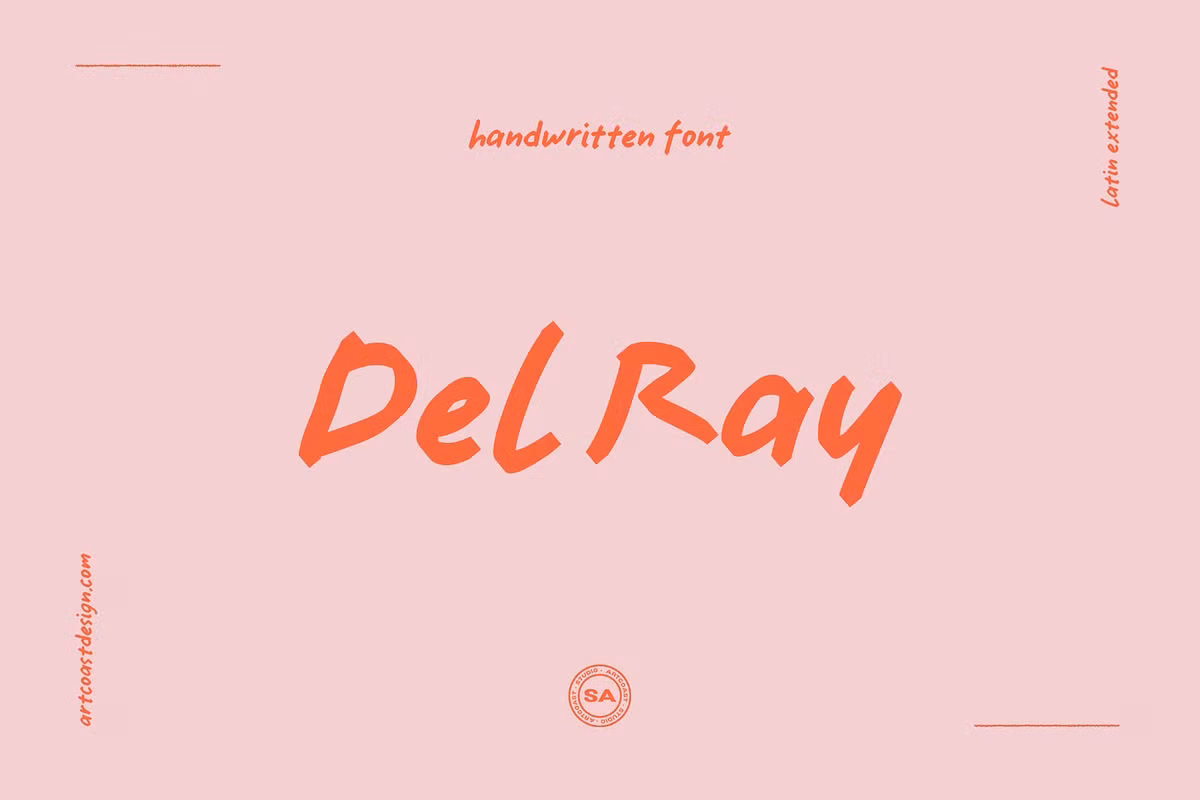
SA Del Ray Handwritten Font Free Download
Bring a touch of warmth and personality to your designs with SA Del Ray Handwritten Font Free Download — a beautifully crafted handwritten typeface that feels natural, friendly, and effortlessly stylish. Perfect for personal branding, invitations, greeting cards, handwritten quotes, and creative social media content, SA Del Ray is designed to make your typography feel like a personal message.
With its smooth curves and casual charm, this font creates a relaxed yet refined atmosphere, giving your text a sense of authenticity and originality. It includes uppercase and lowercase characters, punctuation, numerals, and multilingual support — providing flexibility for various creative projects.